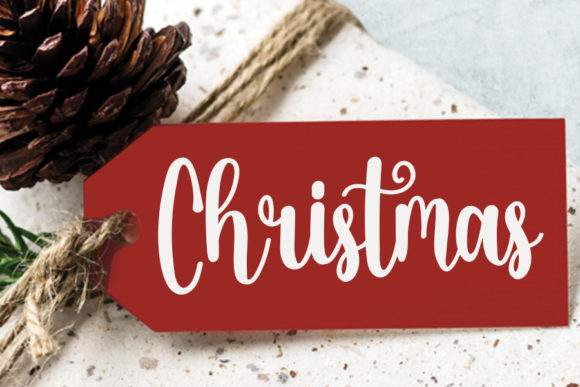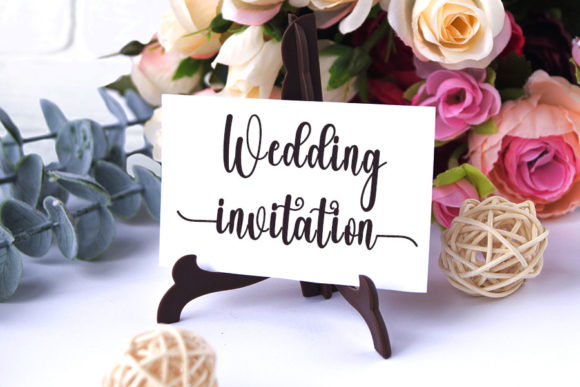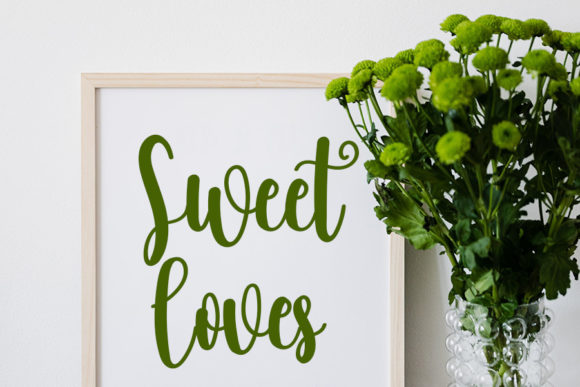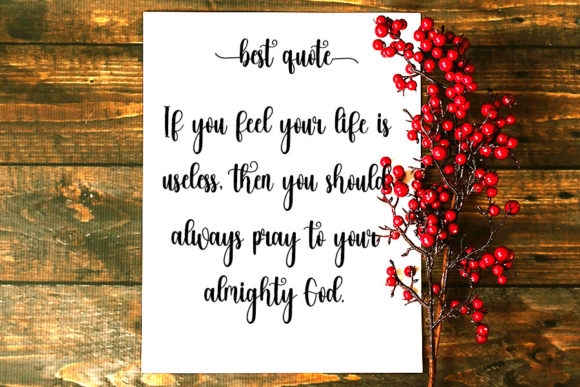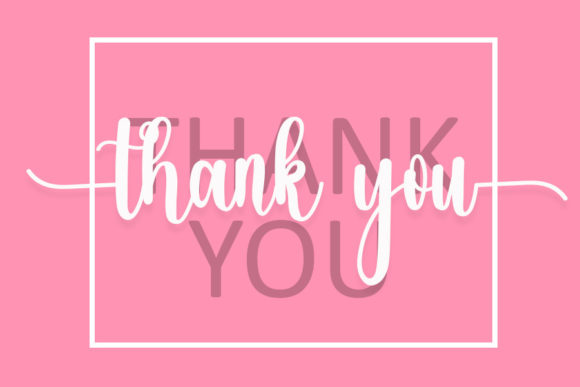
Introduction to Mint Candy Font
Have you ever found yourself staring at a blank page, trying to find the perfect font to bring your creative project to life? For designers, this moment is all too familiar. It’s the moment when you need a high-quality design resource that can elevate your work and make it truly stand out.
That’s where the Mint Candy Font comes in – a lovely and delicate script font that exudes elegance and class. With its refreshing look and feel, this font is the perfect addition to any design project. And the best part? It’s available for free download, making it an accessible design resource for creatives of all levels.
Whether you’re working on a design project that requires a touch of sophistication or a free-spirited vibe, the Mint Candy Font is sure to deliver. Its transparent background and PUA encoding make it easy to access all of the amazing glyphs and ligatures, giving you complete control over your design.
Key Features of Mint Candy Font
- Mint Candy Font is a unique, hand-drawn font with a transparent background
- Includes a wide range of characters, including uppercase and lowercase letters, numbers, and punctuation marks
- Designed to be highly legible at various font sizes, from 12pt to 48pt
Honest Review: Mint Candy Font
I recently came across the Mint Candy Font and was excited to see how it would add to my design project. Upon downloading the font, I was pleased to find that it’s a high-quality addition to any creative project.
- ✨ The font has a transparent background, allowing it to seamlessly integrate with any design.
- ✨ The Mint Candy Font is highly customizable, making it perfect for designers who want to add a unique touch to their projects.
- ⚠️ The font may not be suitable for projects that require a lot of bold or heavy text.
- ⚠️ The Mint Candy Font may not be as versatile as some other fonts, but it still makes a great addition to any design.
Overall, I’m impressed with the Mint Candy Font. While it may have some limitations, it’s a great resource for designers who are looking for a unique and high-quality font for their creative project.
The Mint Candy Font is a high-quality design resource perfect for adding a touch of sweetness to your creative project. This free download offers a transparent background, making it easy to integrate into your designs.
The Mint Candy Font is perfect for designing sweet treats, desserts, and other food-related projects. It’s also great for creating invitations, party decorations, and other festive designs.
To get the most out of the Mint Candy Font, use it in combination with other design elements, such as colorful backgrounds and graphics. You can also experiment with different font sizes and styles to create a unique and eye-catching design.